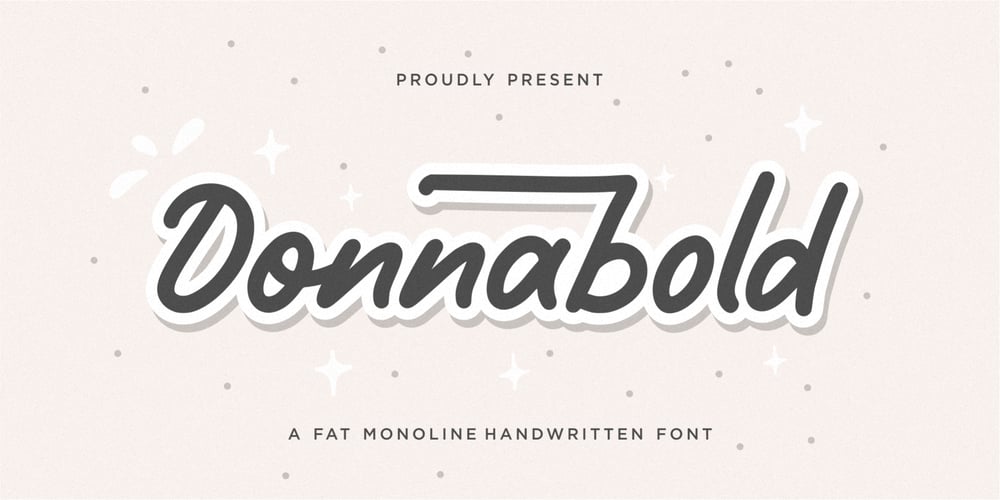
Donnabold Font Family was designed by Suhery Anto, Odies Dwi Yudhistira and published by Qwrtype Foundry. Donnabold contains 1 styles and family package options. Proudly Present, Donnabold is a Fat Monoline Handwritten fontDonnabold is perfect for product packaging, branding project, megazine, social media, wedding, or just used to express words above the background.This font includes OTF, Donnabold also multilingual support.Thank you!